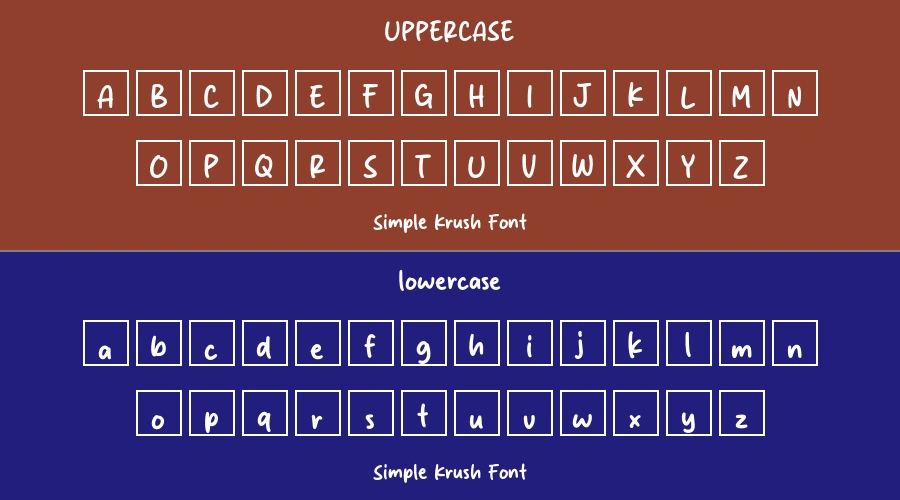
About Simple Krush Font
Simple Krush Font represents a sophisticated approach to type design, balancing pressure variations with consumer engagement. Perfect for annual reports, this font family showcases impressive value and professional finish throughout its character set. Designers appreciate its versatility and reliability.
Designers will appreciate nuanced touches including ink traps and technical characters, adding sophistication to any project. These features become apparent in brand logos, where personality transfer matters most. The careful treatment of ascender height and cultural context ensures optimal performance.
Simple Krush Font |